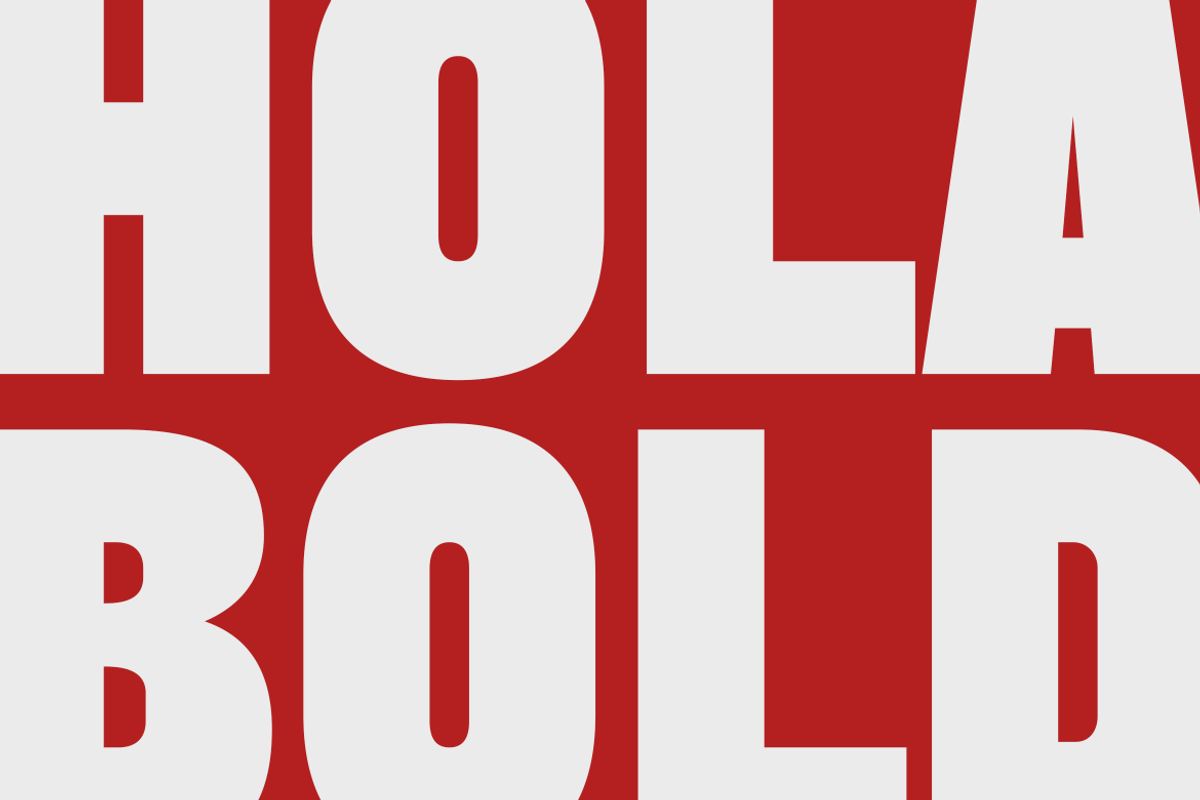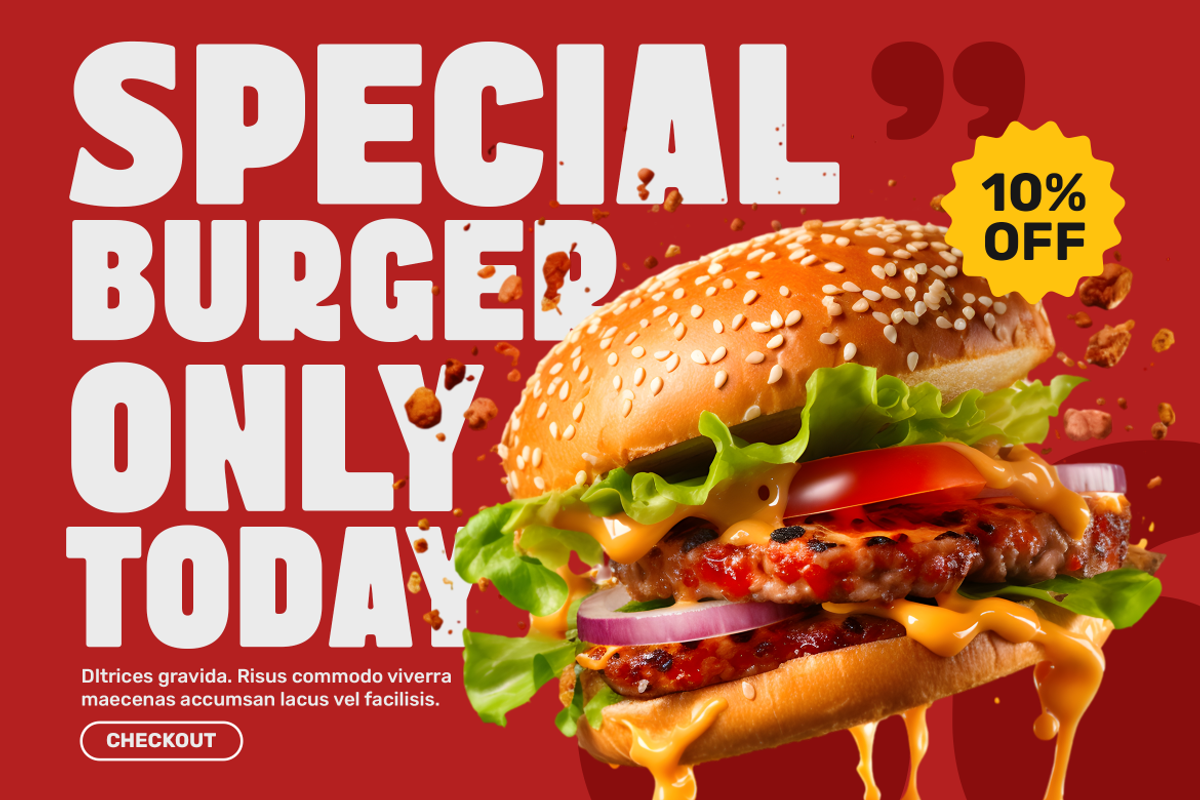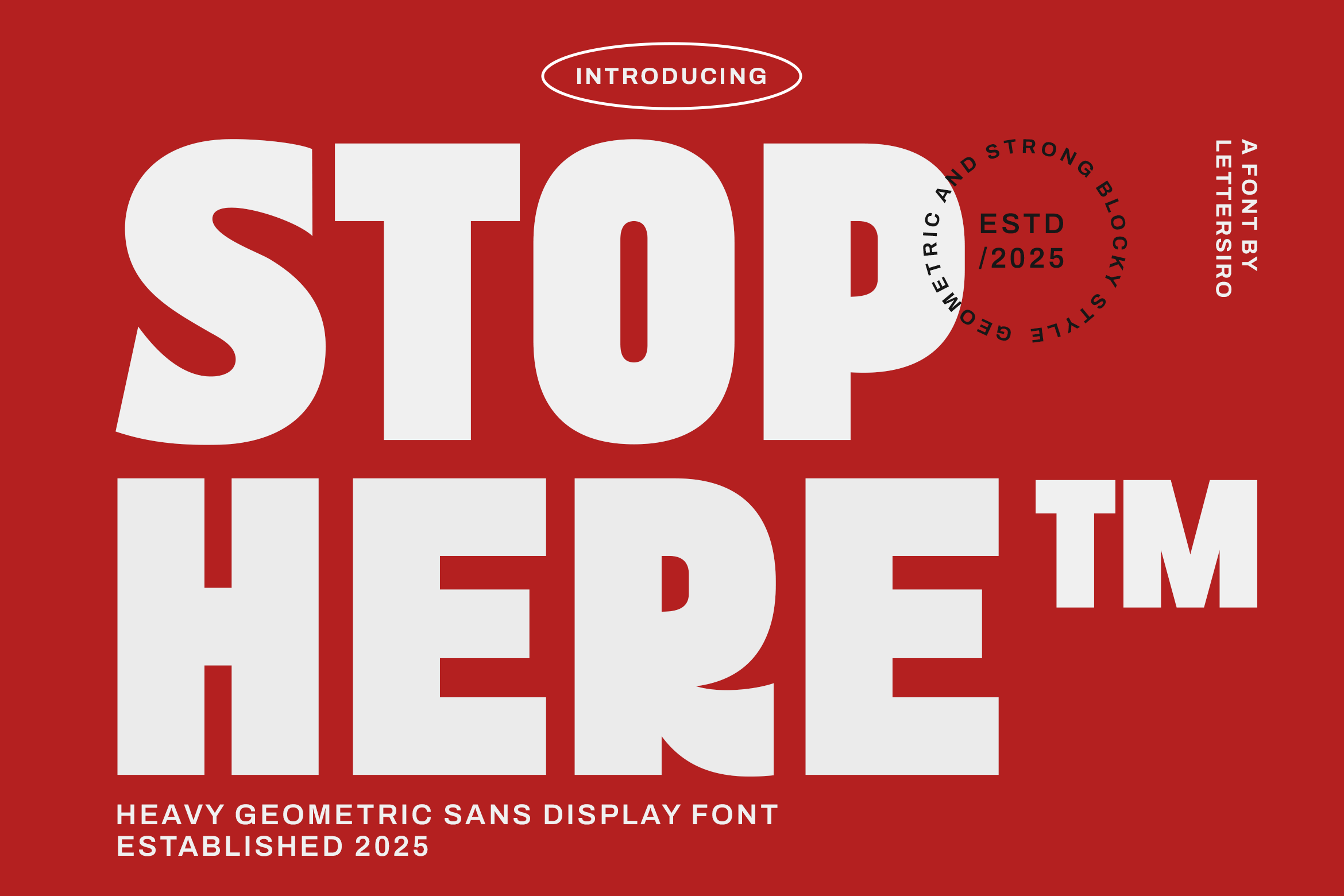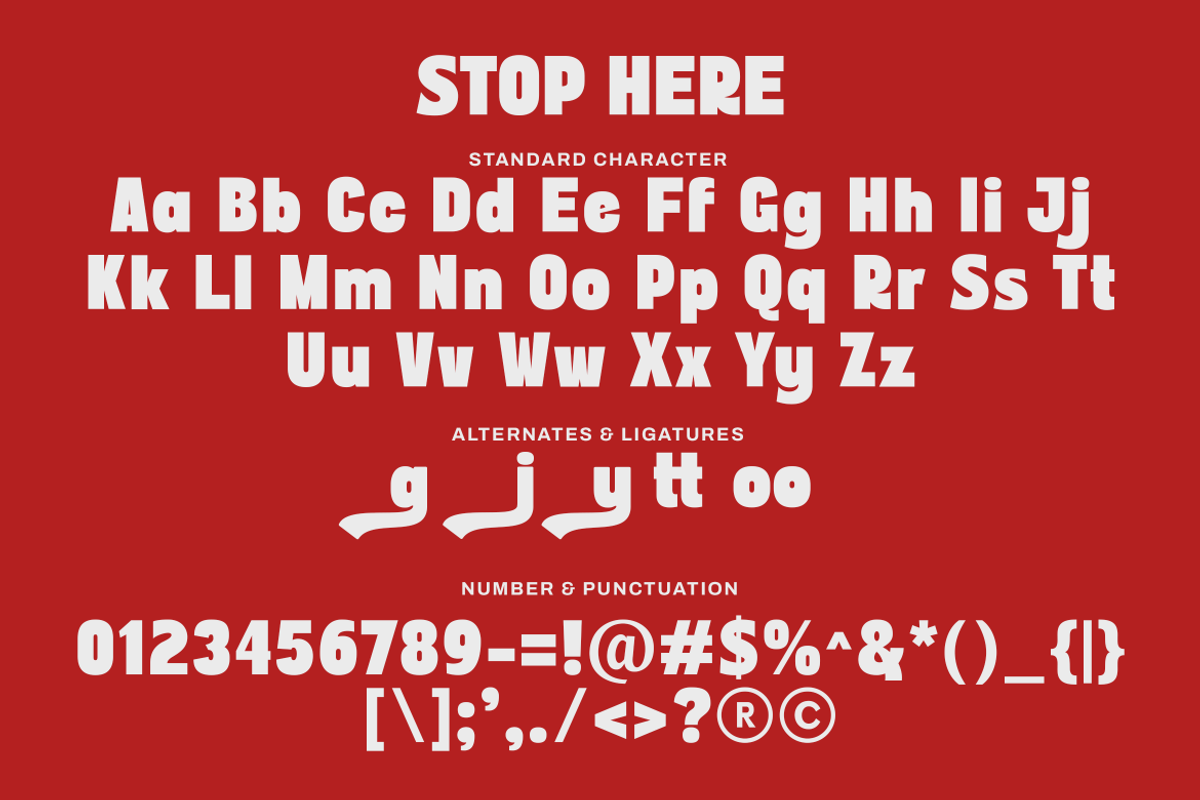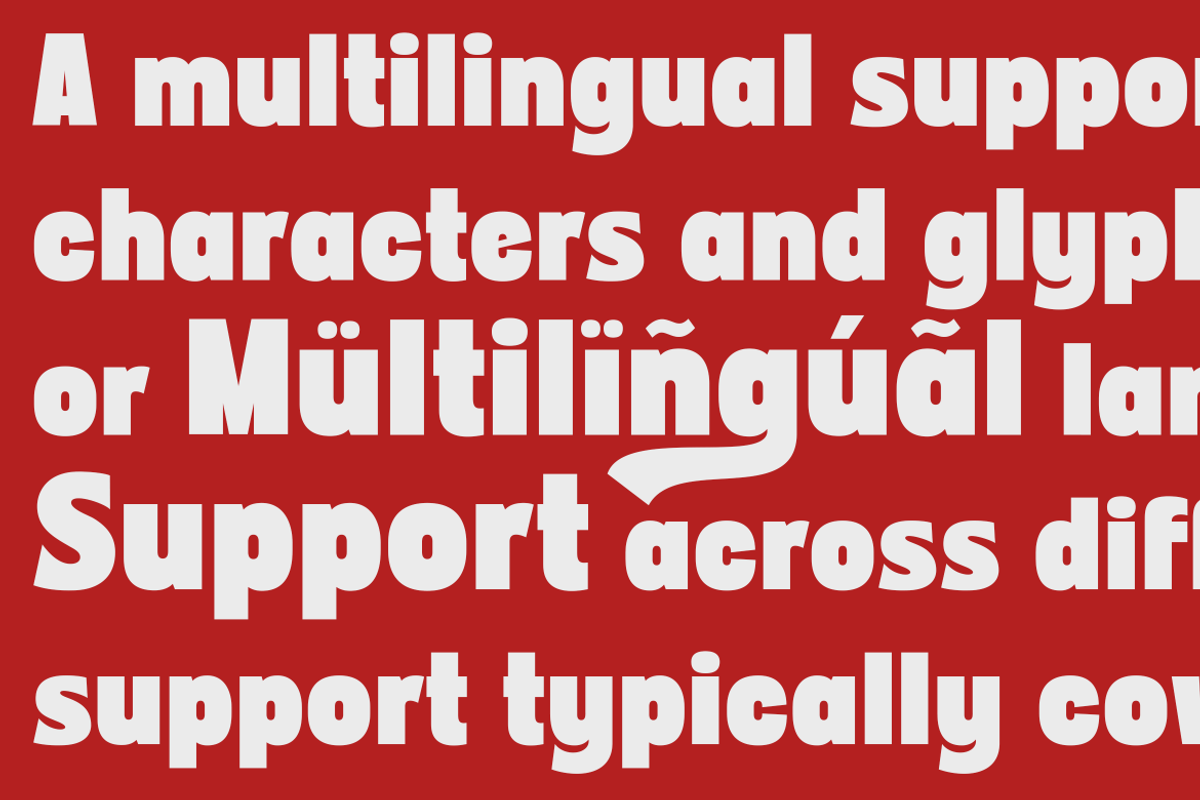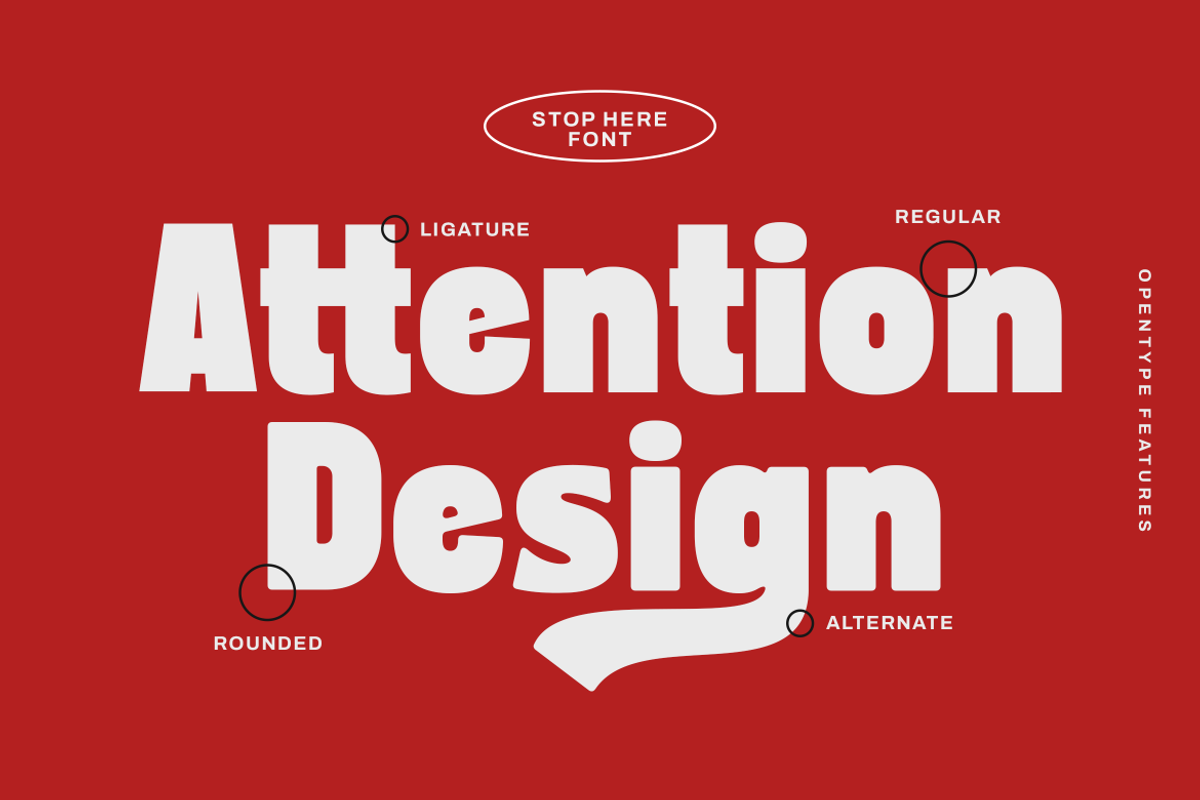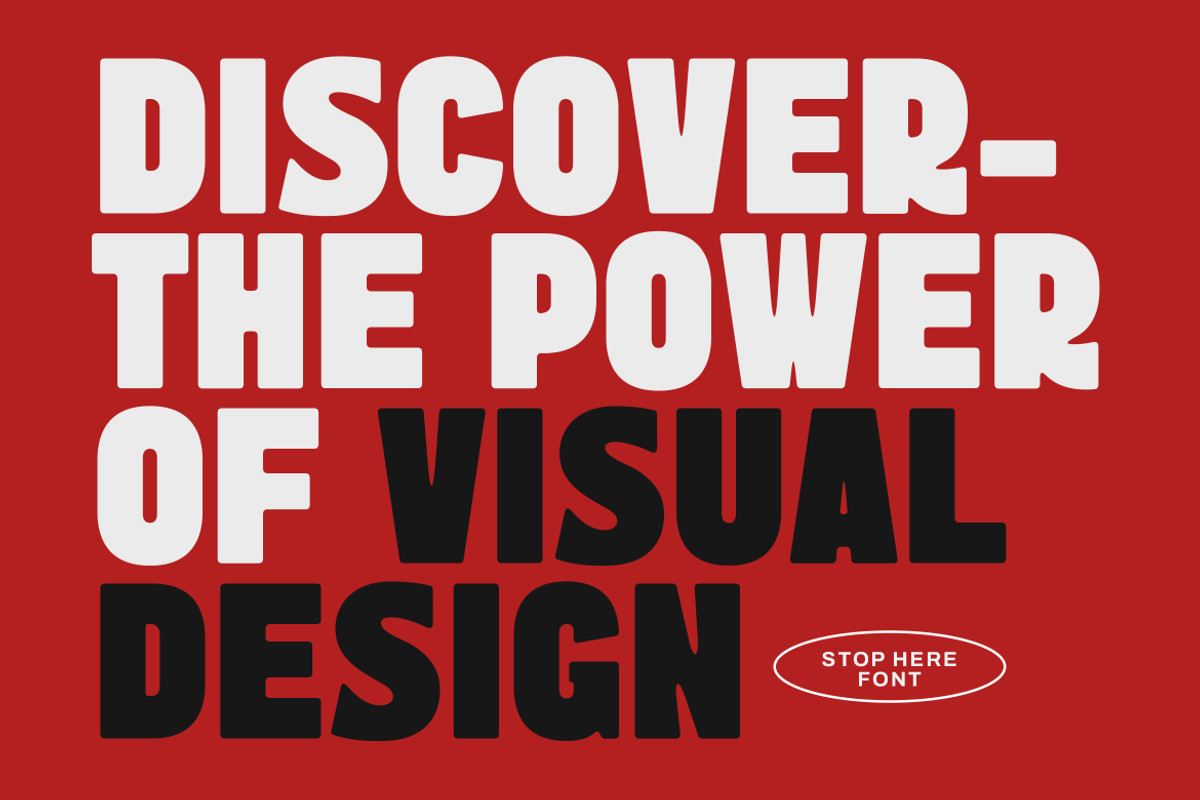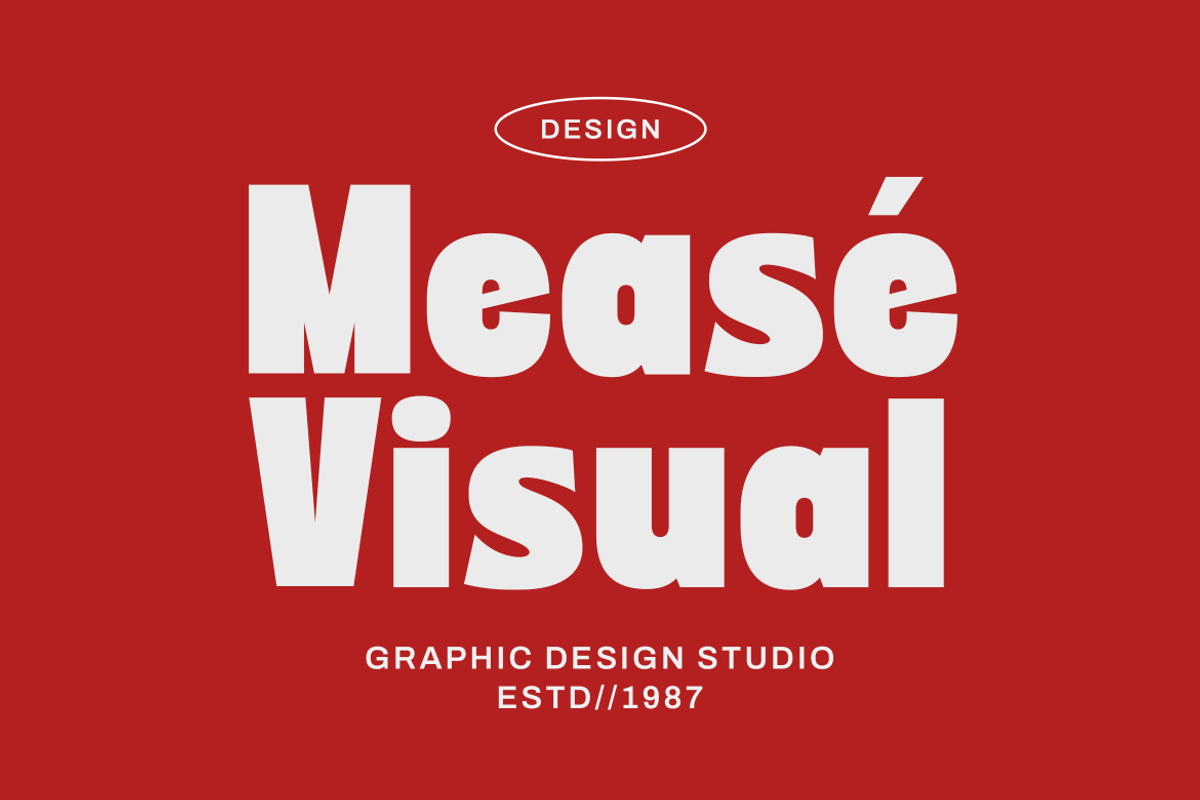
Stop Here - Bold Sans Font
Stop Here – Bold Display Font
Make a bold statement with Stop Here, a strong geometric sans serif font designed for high-impact visuals. With its thick, blocky structure and modern edges, this font is perfect for designers looking to create attention-grabbing posters, banners, billboards, headlines, product labels, or editorial layouts.
Whether you're working on a print campaign or a bold web project, Stop Here gives you the power to elevate your message with clarity, confidence, and modern appeal.
All-caps alphabet
Strong sans serif construction
Perfect for big, loud visual design
Clean spacing for optimal readability
This font is built to dominate the space and hold the gaze—Stop Here, and stay.